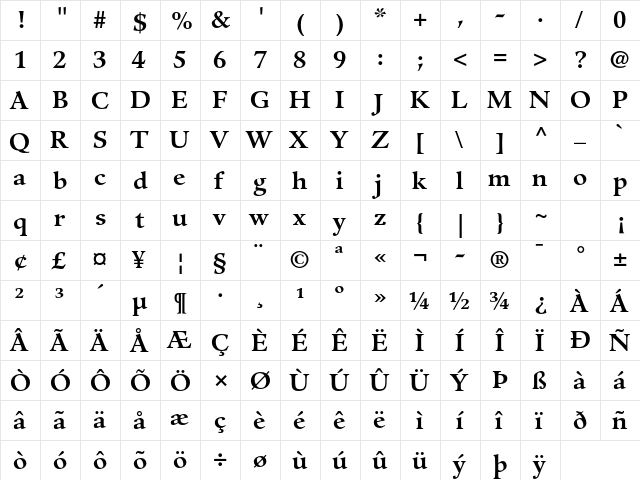
Guardi LT Std 75 Bold
| Designer | Reinhard Haus |
Design Context for Guardi LT Std Typeface
Guardi LT Std offers clean, dependable letterforms without strong stylistic allegiance, making it a practical choice for designers who need flexibility. The heavy weight commands attention and anchors typographic hierarchies.